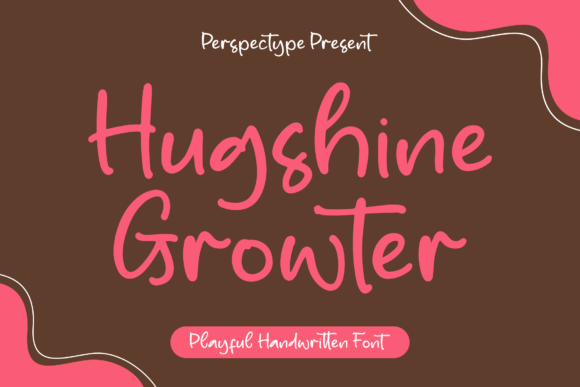
Unleash your creativity with Hugshine Growter, the playful handwritten font that adds a touch of whimsy and charm to any project. Whether you're a seasoned designer or just starting, this versatile script font is your perfect companion for creating captivating designs that leave a lasting impression.
With its enchanting flow and elegant curves, Hugshine Growter effortlessly captures the essence of handwritten beauty. Each character is meticulously crafted to exude a sense of authenticity and warmth, adding a personal touch to your designs. Whether you're a designer working on a captivating logo, or an entrepreneur crafting unique homeware designs, Hugshine Growter seamlessly adapts to your vision.
Imagine your designs adorned with Hugshine Growter's graceful strokes, adding a touch of magic to your product packaging or transforming your mugs into delightful conversation starters. Create posters that speak volumes with their heartfelt messages, or design shopping bags that carry a hint of sophistication. Unleash your creativity and let Hugshine Growter elevate your T-shirt designs to masterpieces that stand out from the crowd.
The possibilities are endless with Hugshine Growter. Its captivating charm lends itself perfectly to book covers, name cards, invitation cards, and greeting cards. Add a touch of elegance to your photography or create a unique watermark that reflects your brand's personality. Whether you're planning a special event or simply seeking to add a personal touch to your projects, Hugshine Growter is your go-to font.
So, embrace the beauty of handwritten artistry and embark on a creative journey with Hugshine Growter. Let its whimsical strokes inspire you to create designs that resonate with your audience and leave a lasting impression. Download Hugshine Growter today and unlock a world of endless creative possibilities.